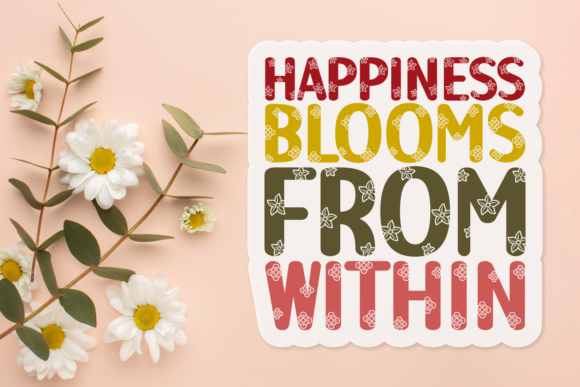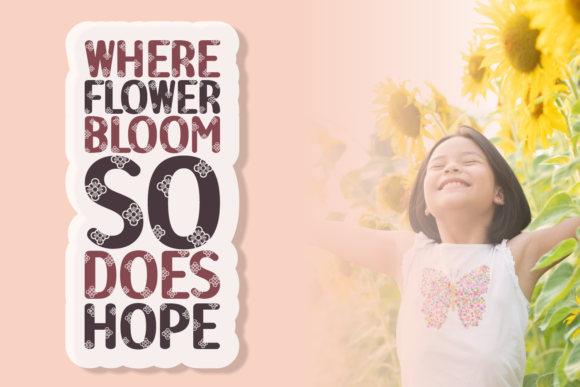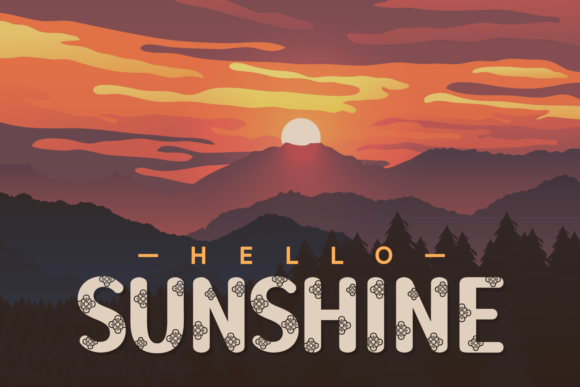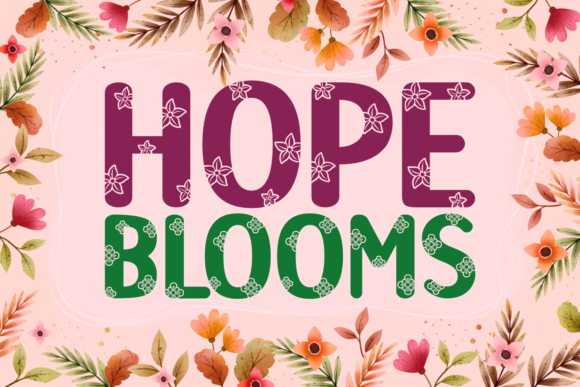
Introduction to Hope Blooms Font
Hope Blooms is a spring-inspired decorative font.
Each set of characters features beautiful floral details Mix them with bright or pastel colors and create gorgeous Easter cards, spring wall arts, decorations, t-shirts, quotes, flower shop branding, etc.